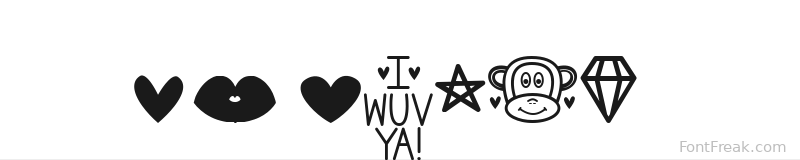
MF Dings 2
MF Dings 2 is a captivating dingbat font designed by Misti Hammers, offering a playful array of decorative symbols that add a whimsical touch to any design project. This font, categorized as a dingbats typeface, features an assortment of icons, including hearts, stars, and playful characters, making it a versatile choice for various creative applications.
Visually, MF Dings 2 is characterized by its clean, bold strokes that ensure clarity and impact. The icons maintain a consistent weight, which creates harmony in compositions. The spacing between the symbols is well-balanced, allowing for easy integration into text or standalone usage. The lack of intricate details keeps the design straightforward, making it suitable for both digital and print mediums.
This font is particularly well-suited for a range of creative projects. It can enhance wedding invitations with its romantic hearts, add flair to greeting cards, and serve as eye-catching elements in children's book illustrations. Additionally, it is perfect for social media graphics, where visual appeal is paramount. Small business owners can also utilize MF Dings 2 to create engaging promotional materials, making their branding more memorable.
Targeted towards graphic designers, content creators, and entrepreneurs, MF Dings 2 is a fantastic resource for anyone looking to infuse their work with a bit of fun. The availability of the MF Dings 2 font free download makes it accessible for all skill levels and budgets, encouraging creativity without financial barriers.
What sets MF Dings 2 apart is its unique ability to convey emotions and themes through simple yet effective symbols. This font not only serves practical purposes but also inspires creativity and expression, making it an essential addition to any designer's toolkit.